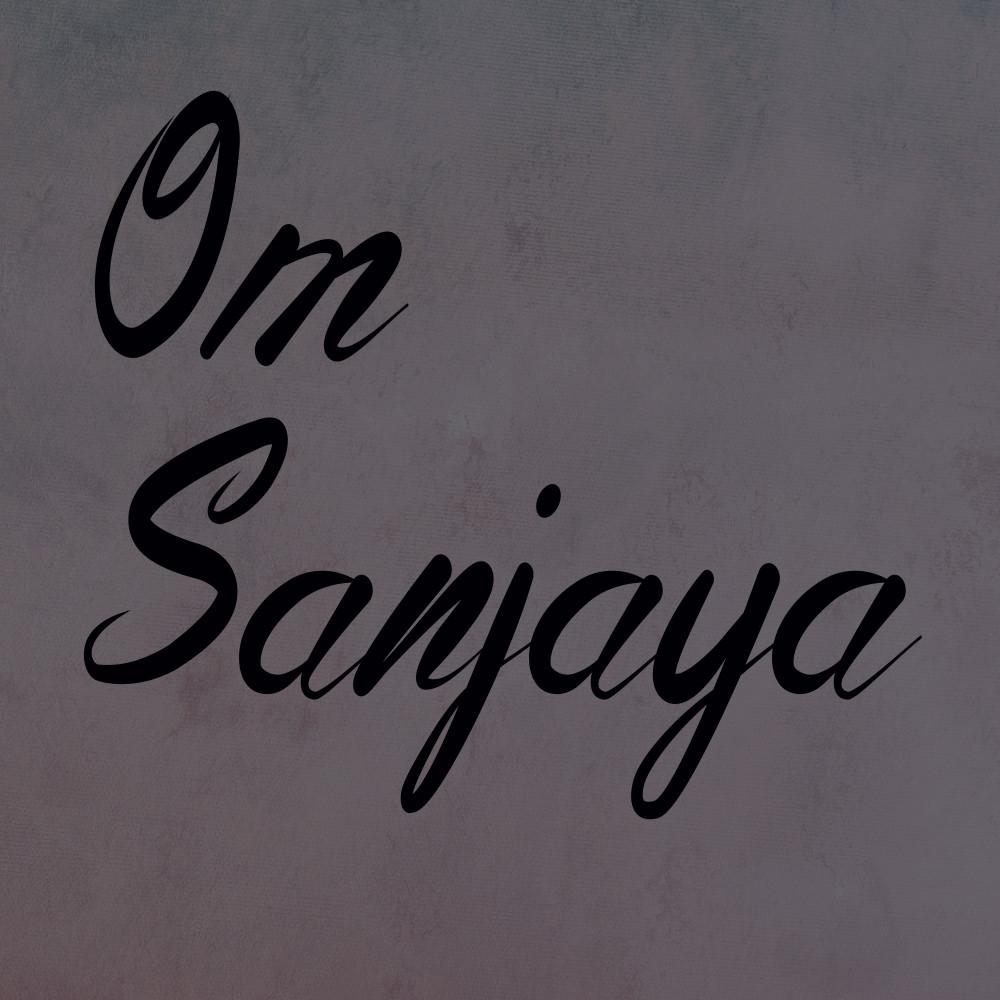
December Note Font Free & Premium Download
December Note Font Description
December Note is a beautiful script font perfect for all needs such as invitation cards, greeting cards, packaged products, and is made to flow beautifully that exudes elegance. This font is tailor-made for all December needs and for those who need a beautiful, natural, and refreshing look to their designs.